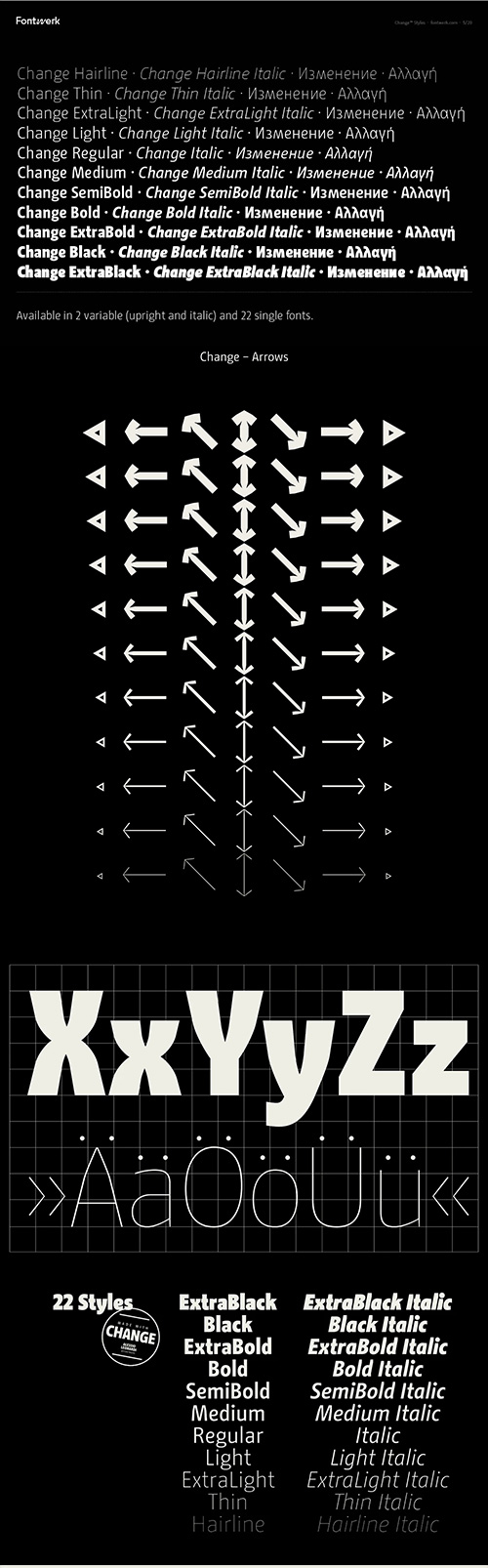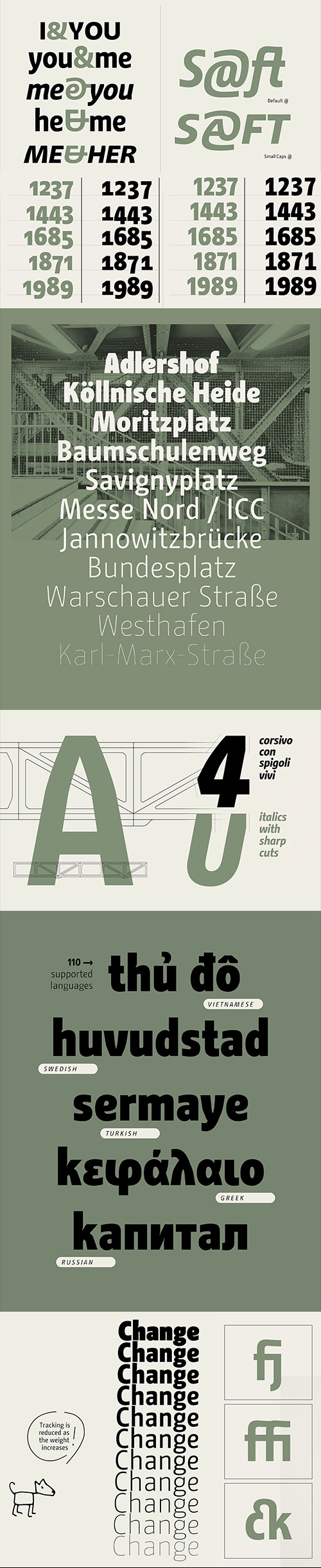
Unconventional typeface
with many peculiar details that embodies change!
- "What is special about the typeface is its humanity. The family was not stringently planned, it has grown and gone through several stages of development. Despite its clarity and functionality, it appears lively and unconventional. It is not what you expect, but always something different." is how Alessio Leonardi describes the temperament of his typeface.